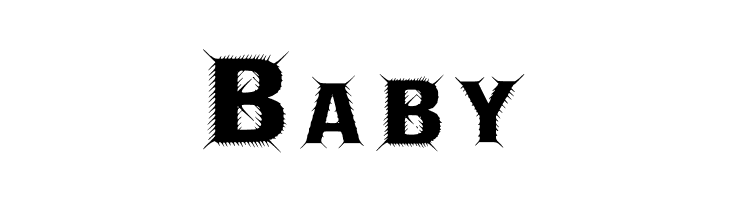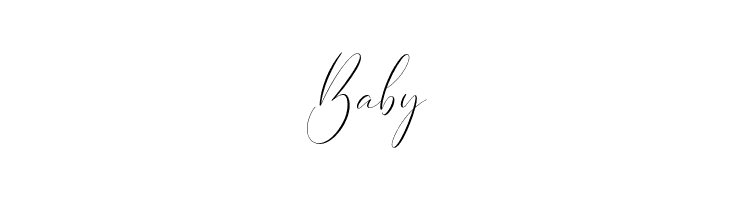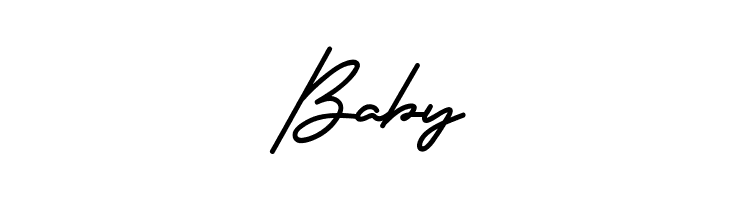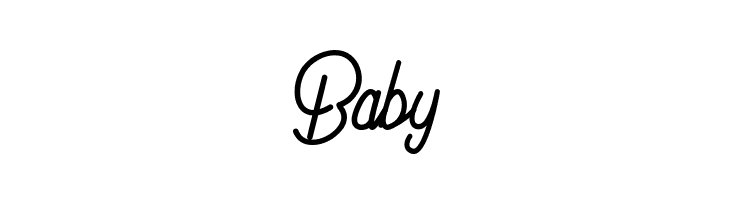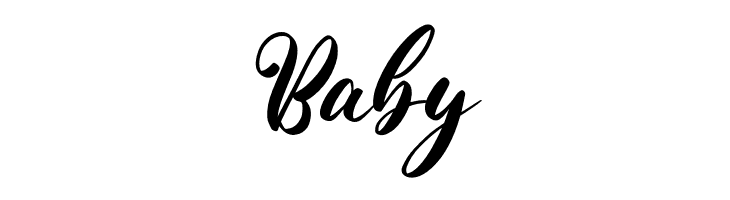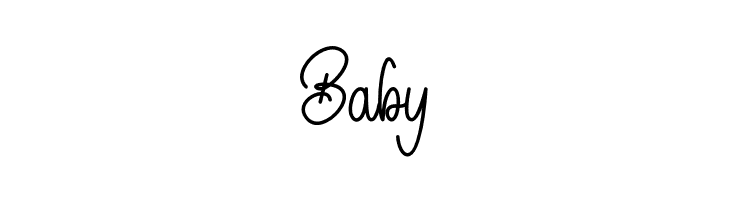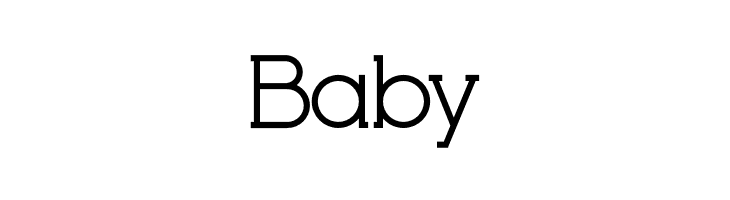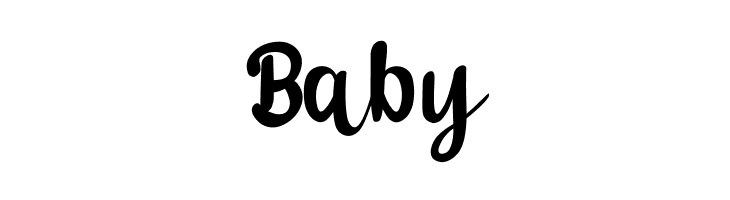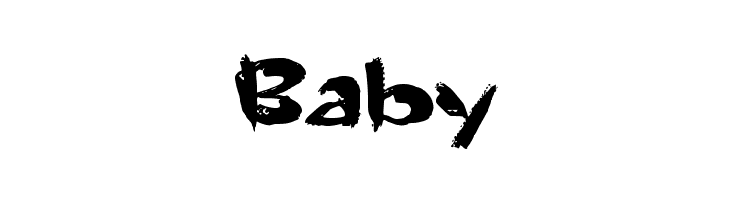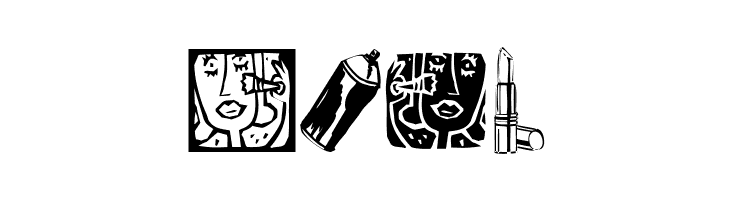
A bold, playful script font with a hand-drawn, modern style.
A display font composed of illustrated human faces for each character.
A cursive, handwritten font with elegant, flowing strokes.
An elegant, flowing script font with ornate and graceful letterforms.
An elegant, flowing script font with graceful cursive letterforms.
An elegant and flowing script font with graceful curves and smooth connections.
A stylish script font with flowing, elegant lines and medium contrast.
An elegant script font with flowing, ornate characters and intricate flourishes.
An elegant script font with flowing, cursive lines and graceful curves.
An elegant script font with flowing cursive and decorative flourishes.
An elegant script font with flowing cursive letters and intricate swashes.
A decorative font with vintage beauty-themed illustrations for each character.
An elegant, cursive script font with flowing, connected letters.
An elegant, bold script font with flowing, cursive letterforms.
A flowing, cursive font with elegant loops and swashes, offering a handwritten appearance.
An elegant and sophisticated script font with flowing, interconnected letters.
An elegant script font with flowing, ornate cursive letters.
A dynamic, expressive handwritten font with sharp, elongated strokes.
A modern, elegant script font with high contrast and flowing cursive letters.
Illustrative font with beauty and salon icons for each character.
A textured, hand-drawn font with a scratch-like appearance.
A bold, spiky font with a modern and edgy design.
A bold, modern sans-serif font with clean lines and uniform stroke widths.
A modern, tall sans-serif font with a clean and professional appearance.
A clean, modern sans-serif font with a tall, narrow structure and consistent thin strokes.
A bold, modern sans-serif font with tall, narrow letters.
A thin, modern font with tall, narrow characters and a minimalist design.
A bold, modern sans-serif font with a condensed and geometric style.
A bold, textured font with a grunge-like, brush-stroke appearance.
A bold, modern sans-serif font with clean lines and uniform stroke widths.
A modern, tall, and narrow sans-serif font with a clean and professional look.
A clean, modern sans-serif font with a light weight and tall, narrow characters.
A bold, modern sans-serif typeface with tall, narrow letters and strong vertical emphasis.
A bold, playful script font with a handwritten style.
A modern, light sans-serif font with rounded edges and balanced spacing.